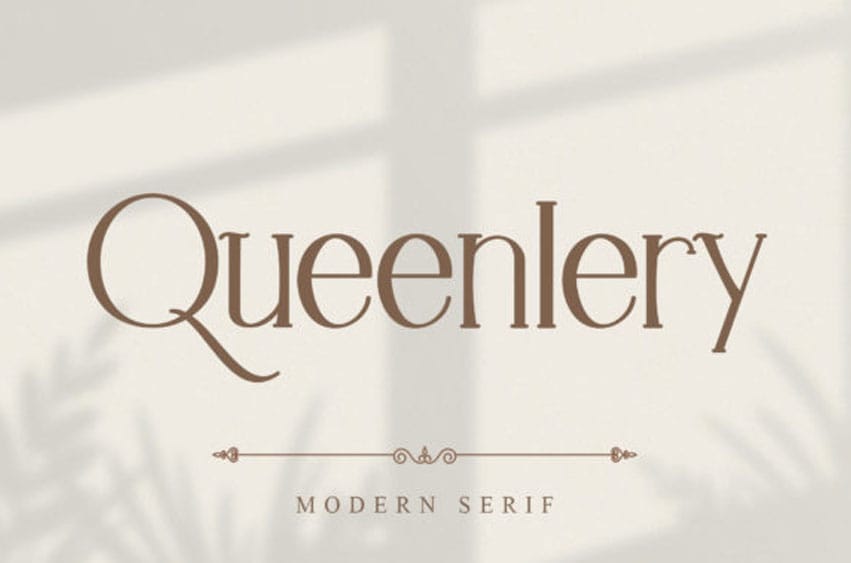
Queenlery Font is an elegant and delicate serif font.
Fall for its ravishing style and use it to create gorgeous wedding invitations, beautiful stationary art, eye-catching social media posts, and much more!